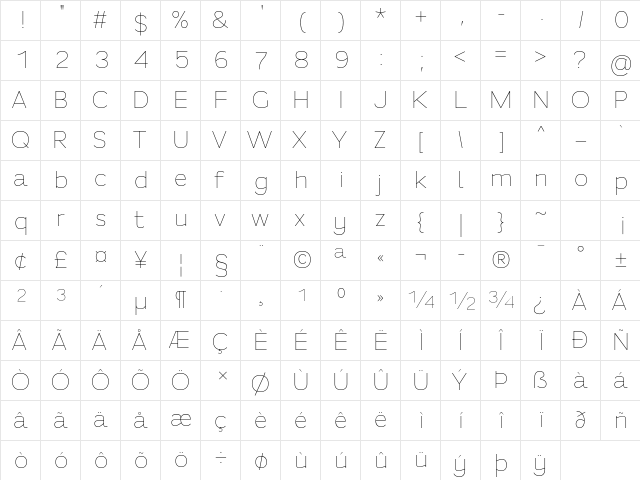
Fortheenas_01 Regular
| Designer | Situjuh Nazara |
Design Context for Fortheenas_01 Typeface
Fortheenas_01 is a composed and adaptable typeface that performs quietly and consistently across a wide range of design contexts.
Pro Tip: Use Fortheenas_01 in both headline and body roles to test its range before committing to a single application.